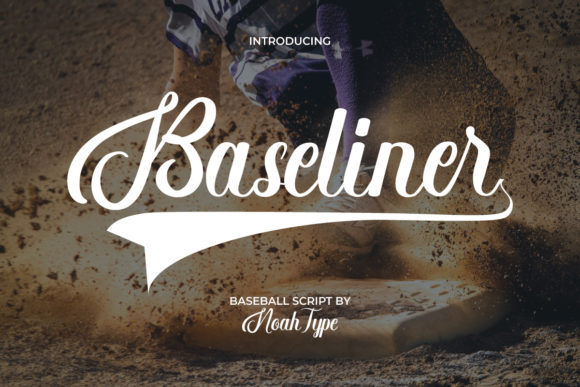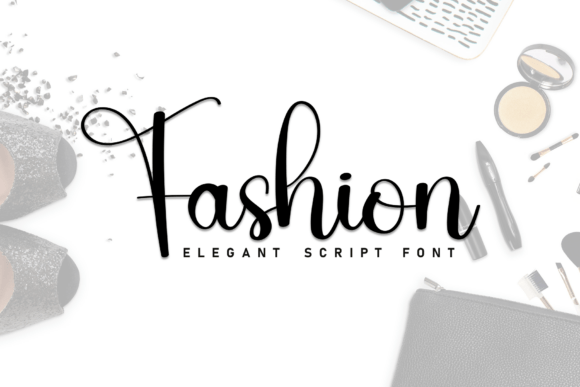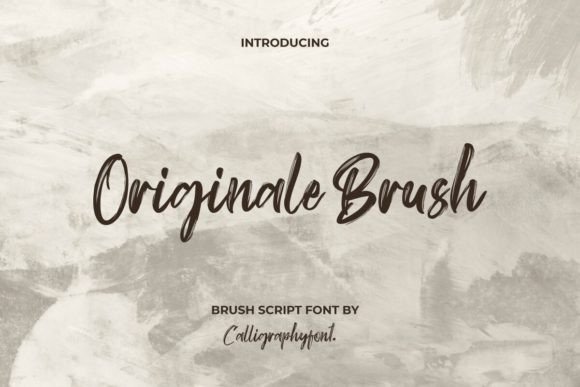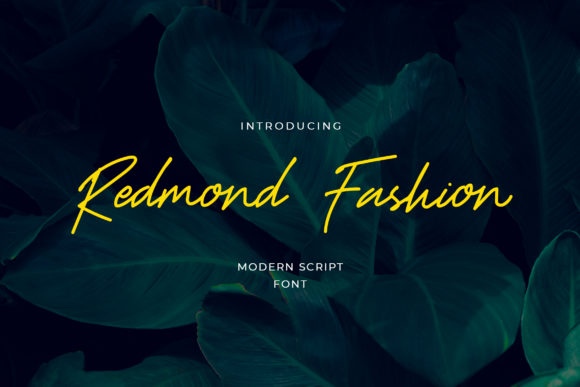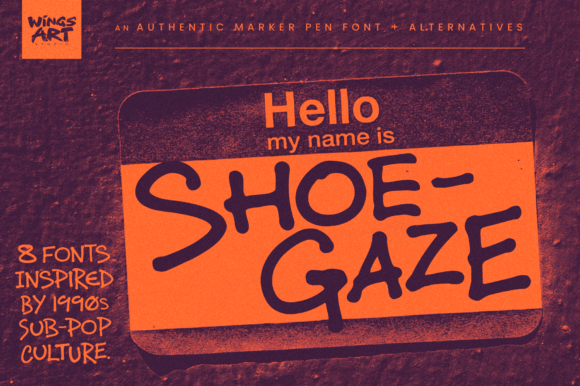
Brush script fonts for logos shown on a hand-painted wordmark
14 Bold Brush Script Fonts for Logos (2026)
Brush script fonts for logos bring something a clean typeface cannot: the energy of a real brush stroke. The slight roughness and momentum read hand-made, confident and human, which suits apparel, food and creative brands. The best brush script fonts for logos keep that painted feel while staying readable as a wordmark.
This guide sorts 14 fonts by style, bold expressive brushes, casual marker scripts, vintage-edged brushes and elegant brush lettering, so you can match the stroke to your brand.
For cleaner scripts, the elegant script fonts guide helps, and the signature fonts for logo design guide covers hand-signed wordmarks.
How to use brush script fonts for logos
A brush logo is all about energy without losing the name. A few rules keep brush script fonts for logos readable.
• Keep it short: a brush stroke flatters a name, not a sentence.
• Pair with calm: set a clean sans tagline under the brush for balance.
• Mind the texture: rough edges look great big but can clog at small sizes.
• One brush, one job: use it for the wordmark and keep details plain.
Bold brush script fonts for logos
Start here. These bold brush script fonts for logos give a wordmark a confident, painted presence.
Monaleya
Monaleya bold expressive brush script fonts for logos
Monaleya is a bold, expressive handwritten brush script with real momentum. Among brush script fonts for logos it makes a confident, painted wordmark for an apparel or creative brand. Keep it to the name and a punchy accent, with a clean sans for detail. The bold strokes read strong at size. For a brand that wants an energetic, brushed logo, Monaleya is a striking script worth a close look.
Originale Brush
Originale Brush textured vintage brush fonts for logos
Originale Brush is a textured, vintage-themed brush script. Among brush script fonts for logos it brings a rough, hand-painted-sign character, good for a craft, coffee or heritage brand. The texture reads best at a generous size, so keep it to the name and pair it with a clean sans. For a brand that wants a rugged, vintage brush logo, Originale Brush is a characterful script worth trying.
Redmond Fashion
Redmond Fashion brushed script fonts for logos
Redmond Fashion is a simple yet stylish brushed script with a current feel. Among brush script fonts for logos it reads clean and on-trend, suiting a fashion or lifestyle wordmark that wants brush energy without too much roughness. Keep it to the name and a clean sans for support. The brushed forms read confident at size. For a fashion brand that wants a tidy, modern brush logo, Redmond Fashion is a sharp script worth a look.
Vionettay
Vionettay modern chic vintage brush fonts for logos
Vionettay marries modern chic with vintage appeal in an expressive brush. Among brush script fonts for logos it balances painted character with a refined edge, good for a boutique or beauty brand that wants brush energy with class. Keep it to the name and a clean sans for detail. The expressive forms read stylish at size. For a brand that wants a chic, vintage-leaning brush logo, Vionettay is a graceful script worth trying.
Marker-style brush fonts for casual logos
For a relaxed, hand-drawn feel, these marker-style brush fonts suit casual apparel, food and lifestyle logos.
Fashion
Fashion marker brush fonts for casual logos
This Fashion font is a handwritten face drawn with a marker. Among marker-style brush script fonts for logos it has a relaxed, casual energy, good for a youthful apparel or lifestyle brand. Keep it to the name and a short accent, with a clean sans for detail. The marker strokes read friendly. For a casual brand that wants a hand-drawn marker logo, this Fashion font is a likeable script worth a look.
Masterday
Masterday marker brush fonts for casual logos
Masterday is a handwritten marker font with an easy, casual hand. Among brush script fonts for logos it suits a relaxed, friendly brand, a cafe, a small label, a creative project. Keep it to the name and a punchy accent, with a clean sans for detail. The marker forms read warm and informal. For a casual brand that wants a laid-back marker logo, Masterday is a fun script worth trying.
School Beach
School Beach marker brush fonts for casual logos
School Beach is a handwritten marker font with a breezy, casual feel. Among marker-style brush script fonts for logos it reads playful and relaxed, good for a youth, surf or summer brand. Keep it to the name and a short accent, with a clean sans for detail. The marker forms read fun and friendly. For a casual, summery brand that wants a relaxed marker logo, School Beach is a likeable script worth a look.
Starbeam
Starbeam marker brush fonts for casual logos
Starbeam is a handwritten marker font with a cheerful character. Among brush script fonts for logos it brings a bright, casual energy, suiting a kids, craft or lifestyle brand. Keep it to the name and a punchy accent, with a clean sans for detail. The marker strokes read upbeat. For a friendly brand that wants a cheerful marker logo, Starbeam is a fun script worth trying.
Summer Deutsch
Summer Deutsch marker brush fonts for casual logos
Summer Deutsch is a handwritten marker font with a sunny, relaxed feel. Among marker-style brush script fonts for logos it suits a summer, travel or lifestyle brand that wants a hand-made warmth. Keep it to the name and a short accent, with a clean sans for detail. The marker forms read easy and friendly. For a brand that wants a sunny, casual marker logo, Summer Deutsch is a likeable script worth a look.
Ravishing
Ravishing marker brush fonts for casual logos
Ravishing is a handwritten marker font with a confident, casual hand. Among brush script fonts for logos it reads lively and friendly, good for a creative or lifestyle brand. Keep it to the name and a punchy accent, with a clean sans for detail. The marker strokes read warm and energetic. For a casual brand that wants a confident marker logo, Ravishing is a fun script worth trying.
Brush fonts with a vintage or retro edge
For character and nostalgia, these brush script fonts for logos bring a vintage, hand-painted-sign feel.
Shoegaze
Shoegaze 90s handwritten brush fonts for logos
Shoegaze is a hand-written font inspired by 1990s alt-rock, indie film and fashion. Among vintage brush script fonts for logos it carries a nostalgic, lo-fi character, ideal for a music, indie or streetwear brand. Keep it to the name and a short accent, with a clean sans for detail. The hand-drawn forms read raw and authentic. For a brand with a 90s, indie story, Shoegaze is a characterful script worth a look.
Baseliner
Baseliner baseball-inspired brush script fonts for logos
Baseliner is a script inspired by the baseball world, with a sporty, hand-painted swing. Among brush script fonts for logos it brings team-jersey energy, good for sports, varsity and casual apparel brands. Keep it to the name and numbers, with a clean sans for detail. The athletic strokes read confident at size. For a sports or apparel brand that wants a baseball-style brush logo, Baseliner is a characterful script worth trying.
Greek Odyssey
Greek Odyssey classic brush-inspired fonts for logos
Greek Odyssey is a Roman Greek-inspired face built on classic elegance. Among brush script fonts for logos it is the most heritage-leaning, with a hand-crafted, antique character for a brand that wants timeless gravitas. Keep it to the name and short headers, with a clean sans for detail. The classic forms read distinguished at size. For a brand that wants a hand-crafted, classical logo, Greek Odyssey is a characterful font worth a look.
Elegant brush scripts for refined logos
For a softer, upmarket brush, this elegant lettering keeps the painted feel while reading refined.
Fashion Elegant Beautiful Timeless Moder
Melissa elegant feminine brush script fonts for logos
Melissa is an elegant, feminine brush face with modern sophistication. Among brush script fonts for logos it is the most refined, keeping a painted softness while reading upmarket, good for a beauty or boutique brand. Keep it to the name and a short accent, with a clean sans for detail. The elegant strokes read graceful at size. For a refined brand that wants a soft, elegant brush logo, Melissa is a lovely script worth trying.
Fonts FAQ
What are the best brush script fonts for logos in 2026?
The best brush script fonts for logos keep a painted energy while staying readable. From this roundup, Monaleya and Originale Brush bring bold, textured strokes, the marker faces like Masterday suit casual brands, Shoegaze adds a 90s edge, and Melissa keeps it elegant. Use the brush for the wordmark and a clean sans for the details.
What brands suit a brush script logo?
Brush logos suit brands that want to feel hand-made, energetic or authentic, such as apparel, coffee, food, sports and creative studios. The painted stroke reads human and confident. More refined brushes like Melissa also work for beauty and boutique brands, while marker styles fit casual and youthful labels.
How do I keep a brush logo readable when small?
Choose a brush with relatively solid strokes rather than heavy texture, keep the wordmark short, and pair it with a clean sans for the tagline. Test the logo at small sizes, since rough edges and fine ends can clog or vanish. If it breaks up, switch to a smoother brush or add a simplified version for tiny uses.
Choosing the right brush script for your logo
Choosing brush script fonts for logos is about energy and legibility: pick a painted face that still reads at the name, keep details in a clean sans, and match the stroke to your brand, bold for impact, marker for casual, elegant for refined. Test it small, and the logo reads hand-made and confident.
From here, the elegant script fonts guide helps with smoother scripts, and the signature fonts for logo design guide covers hand-signed wordmarks. For background, this brush script overview is a useful reference. Test your brush logo at small sizes before you commit.